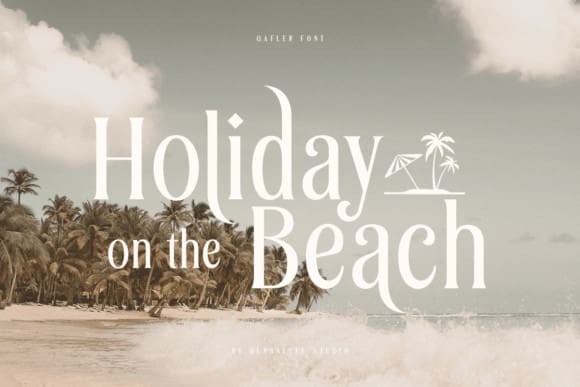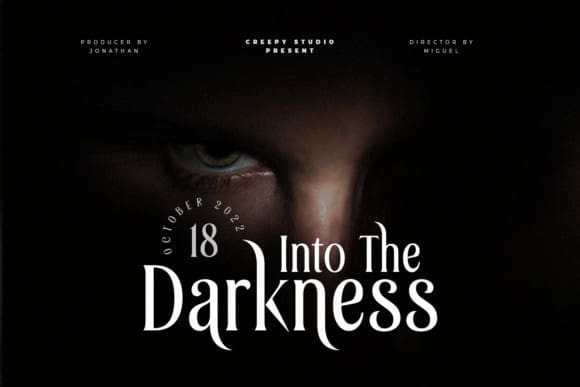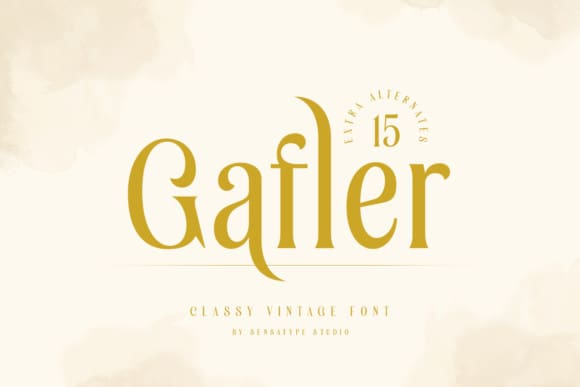
Gafler Font
Gafler Font, a stylish serif font, captivates with its unique design, blending modern aesthetics with timeless sophistication. The distinctive serifs and graceful letterforms exude a sense of refinement, making it an ideal choice for projects that demand a touch of sophistication and contemporary elegance.